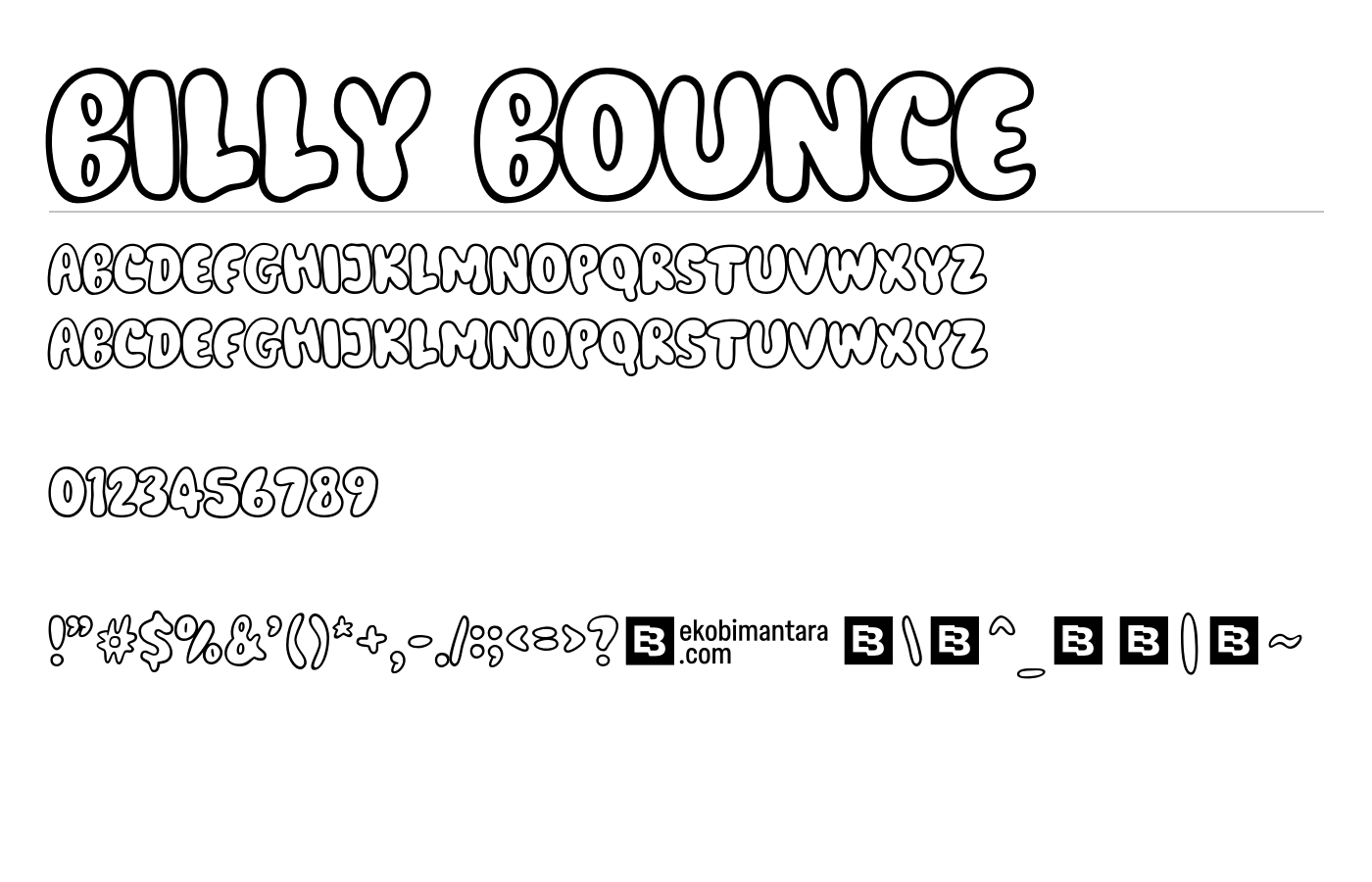
Billy Bounce is a playful and bold sans serif font with rounded, bubbly letterforms that create a fun, approachable vibe. Its thick strokes and high x-height make it perfect for eye-catching headlines, children's products, or casual branding where a lively and friendly tone is desired. This font works well in contexts that need a cheerful, informal style to engage viewers and add personality.
Billy Bounce Font
About Billy Bounce Font
| Font family | Billy Bounce Font |
| Designer | Eko Bimantara |